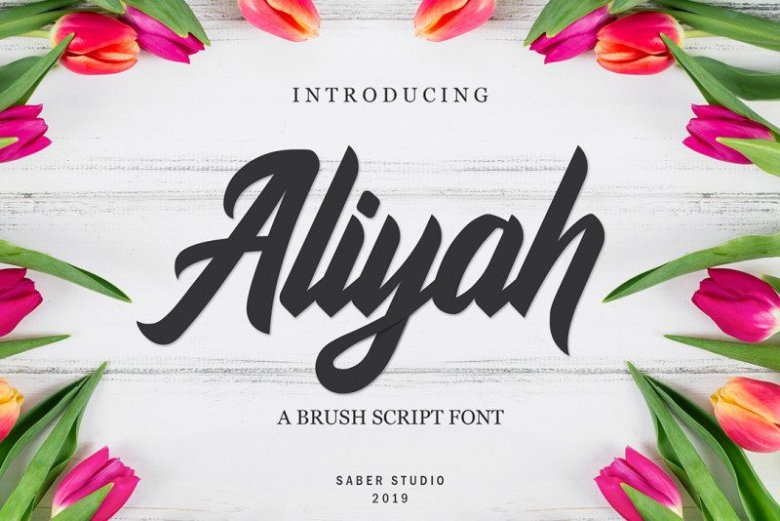
Aliyah Script Font
Aliyah is brush sript font. Aliyah come with one font style. This font is suitable and applicable to create typography design, christmas card, branding, logos, product packaging, invitation, qoutes, t-shirt, label poster etc.